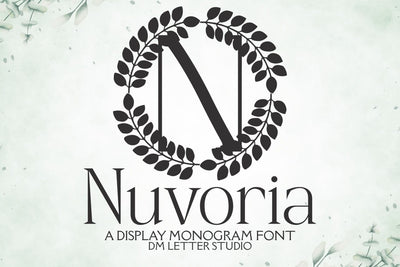
Nuvoria Monogram Font
Meet Nuvoria, the Monogram Font
Nuvoria Monogram Font turns simple initials into sleek, boutique-ready emblems. Strokes feel smooth and confident, while open counters keep tiny tags readable. Use it for wedding suites, boutique logos, keepsake gifts, foil seals, and elegant packaging. Moreover, Nuvoria pairs beautifully with modern serifs and quiet humanist sans fonts, so your layouts look refined without extra work.
Where this monogram font shines
Set single, double, or triple initials for logos, seals, menus, and place cards. Then frame them with laurel rings, ovals, or thin rules to echo the poised geometry. Since proportions favor symmetry and clarity, centered compositions come together in minutes. As a result, thumbnails stand out across marketplaces and your listings feel consistent from invites to signage. Nuvoria also scales smoothly from jewelry cards to entry displays.
Design tips for Nuvoria Monogram
Keep initials large and let white space breathe. Pair the headline monogram with a soft serif for body text or a clean sans for labels. Add micro shadows, a fine inner stroke, or a delicate frame to create depth. Because the forms feel airy and balanced, textured papers and metallic accents raise perceived value. However, keep copy short so the monogram remains the hero.
Select stylistic alternates for key letters
Curves tuned for foil, letterpress, engraving, laser, and clean vinyl cutting